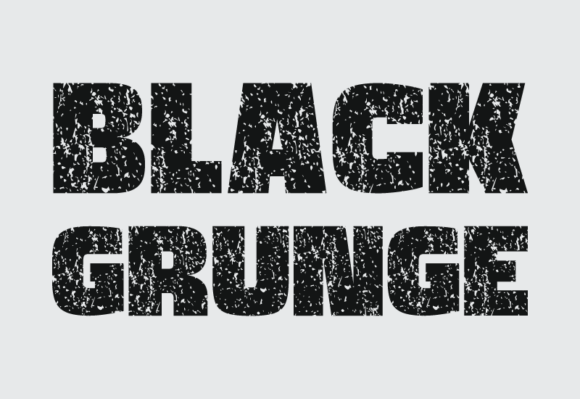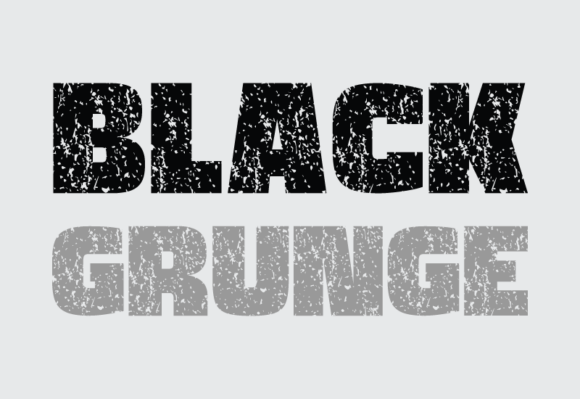
Unleash Your Design Rebel
Have you ever been stuck on a design project, struggling to find the perfect font to convey your message? I know I have. It’s that moment when you’re staring at a blank canvas, and all you need is that one thing to bring your idea to life. For me, that moment came when I discovered the Black Grunge Font.
This eclectic and singular typeface is more than just a font – it’s a statement. With its distressed textures and raw, tough lines, Black Grunge Font embodies the spirit of rebellion, perfect for designers who want to make a bold statement. Whether you’re creating disruptive poster graphics, defiant album covers, or unique streetwear branding, Black Grunge Font amplifies your message with profound resonance.
Key Features of Black Grunge Font
- Unique Characteristics: The Black Grunge Font features a distressed, grungy aesthetic with bold lines and rough textures, giving it a unique and eye-catching look.
Designer Review: Black Grunge Font
Black Grunge Font is a bold and edgy addition to any design project. ✨ I love how it adds a touch of rebellion to headings and titles. The distressed texture and rough edges give it a unique, hand-crafted feel that’s perfect for music, fashion, and lifestyle brands.
- ✨ Uniquely textured design that adds depth and character to designs
- ✨ Highly customizable, with various font weights and sizes available
- ✨ Perfect for adding a touch of grunge or punk rock aesthetic to designs
However, I do have a few concerns. ⚠️ The font can be difficult to read at small sizes, which may limit its use in certain applications. Additionally, the distressed texture can be overwhelming if not used thoughtfully.
- ⚠️ May be difficult to read at small sizes
- ⚠️ Can be overwhelming if not used thoughtfully
Overall, I think Black Grunge Font is a great addition to any designer’s toolkit. While it has some limitations, its unique design and high customizability make it a versatile and effective choice for a wide range of projects.
Tips for Getting the Most Out of Black Grunge Font
To achieve the best results, use Black Grunge Font in conjunction with distressed textures and backgrounds. Experiment with different font sizes and styles to create a unique grunge effect.
Black Grunge Font is commonly used in rock music and fashion branding, as well as in graphic design projects that require a distressed, edgy look.
Alternatives to Black Grunge Font
Rockwell
Rockwell is a serif font that resembles a classic, elegant style. It’s ideal for use in formal or traditional settings, such as business reports, wedding invitations, or historical documents. Compared to Black Grunge Font, Rockwell is more refined and polished, lacking the distressed texture.
Impact
Impact is a sans-serif font known for its bold and geometric shape. It’s commonly used in headings, titles, and other display text where a strong visual impact is desired. Compared to Black Grunge Font, Impact is more modern and edgy, with a bolder and more angular feel.
Stahlschrift
Stahlschrift is a sans-serif font that originated in the 1920s. It has a strong, industrial feel and is often used in retro or vintage designs. Compared to Black Grunge Font, Stahlschrift has a more straightforward, utilitarian look and feel.